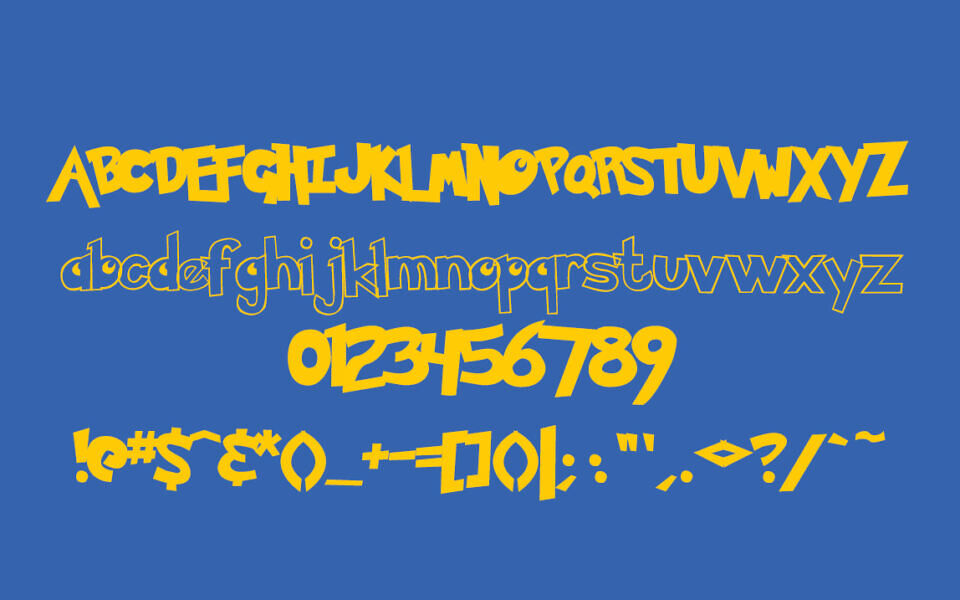
Pokémon Font
The Pokémon Font, inspired by the iconic Pokémon franchise, is a bold, sans-serif typeface with a playful, geometric style. Featuring angular yet rounded letterforms, it’s perfect for logos, titles, and fan projects.
Uppercase dominates, with clear numerals and symbols like © and é for authenticity. Available as fan-made versions, it captures the adventurous, nostalgic vibe of Pokémon games. Best for headings, it pairs well with high-contrast colors for readability.